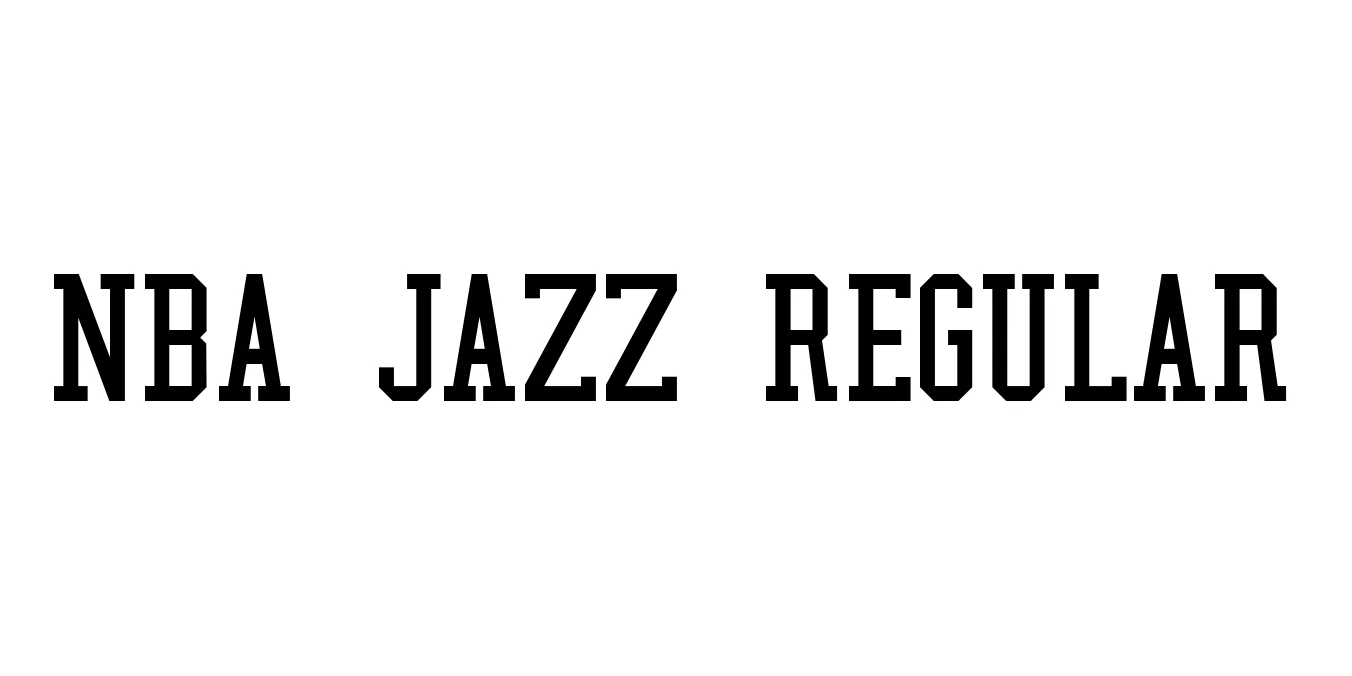
NBA Jazz Regular
Designed by NBA Properties, Inc.
| Category | Display / Sports Serif |
| Designer | NBA Properties, Inc. |
The NBA Jazz Regular font is a specialized display typeface meticulously crafted to represent the visual identity of the Utah Jazz basketball franchise. Drawing inspiration from the rhythmic and sharp aesthetics of the jazz music genre and the rugged landscapes of Utah, this font features bold, angular serifs and a condensed structure. It was designed to provide a high-impact, professional look that translates well across both physical jerseys and digital broadcasting platforms.
Over the years, the typeface has become synonymous with the Utah Jazz brand, evolving alongside the team's logo changes but maintaining its core athletic slab-serif DNA. Its heavy weight and sharp corners make it exceptionally legible from a distance, which is a critical requirement for sports typography used in stadiums and on fast-moving television graphics. Today, it remains a popular choice for fans and graphic designers aiming to capture a professional sports aesthetic.
NBA Jazz Regular Best Uses
Creating logos and identity systems for local sports teams.
Perfect for printing names and numbers on jerseys and fan merchandise.
High-visibility titles for sports blogs, posters, and social media banners.